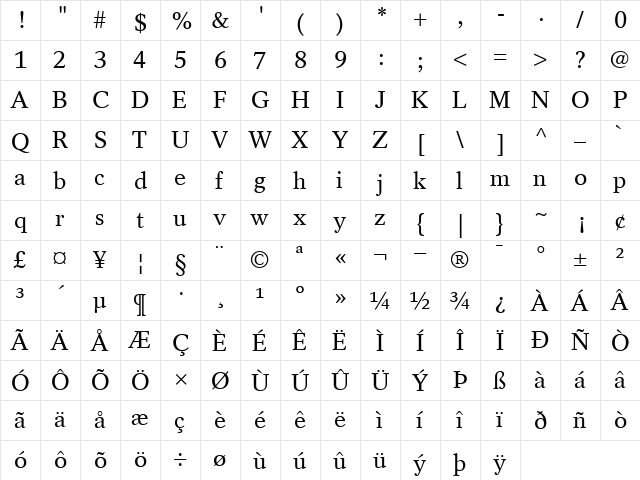
RotationRoman Roman
Design Context for RotationRoman Typeface
RotationRoman is a composed and adaptable typeface that performs quietly and consistently across a wide range of design contexts.